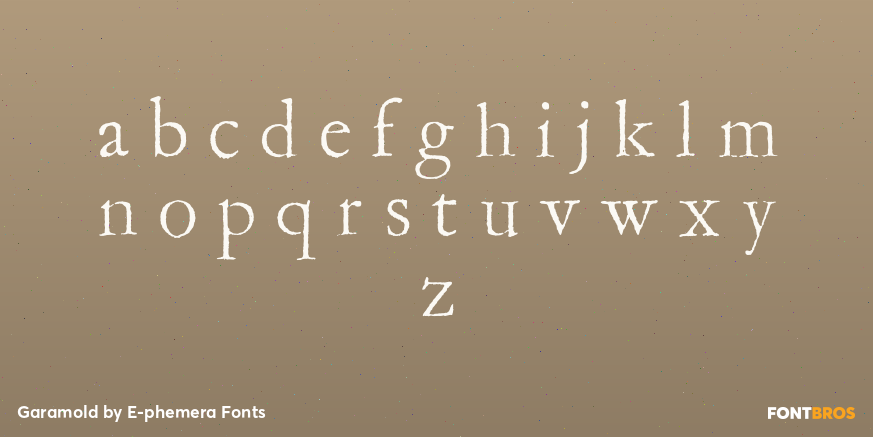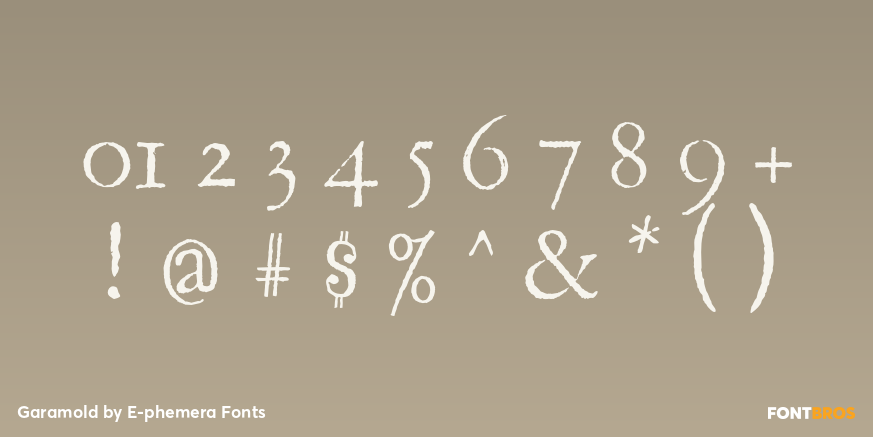
Garamold
Font Family by E-phemera Fonts
Garamold and Garamold Italic are inspired by specimens of classic French type. At smaller sizes, the rough edges give it a very organic feel.
The font contains classic ligatures and the long s for authentic vintage typography. Automatic long s substitution is accessible through the historical or titling alternates OpenType features.